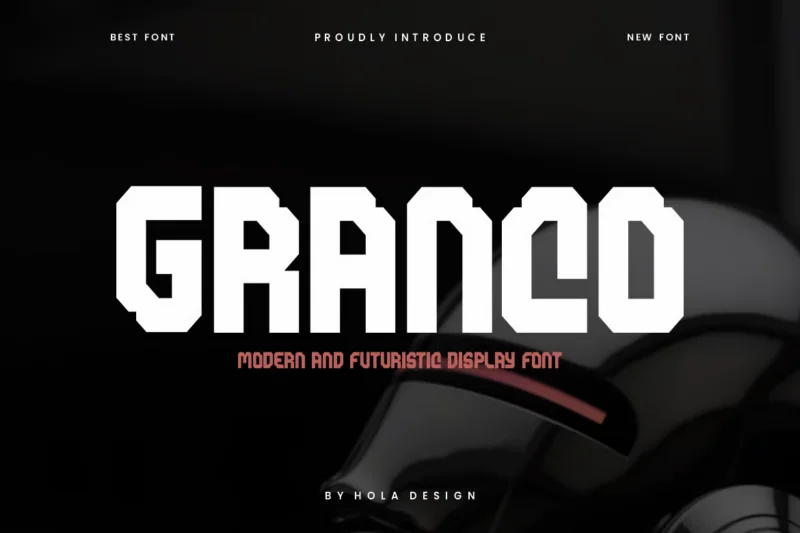
Granco – Techno & Futuristic Font
Granco – Techno & Futuristic Font is unique . Ready to use for your design like labeling, movie sceen, poster, movie title, gigs, album covers, logos, and much more.